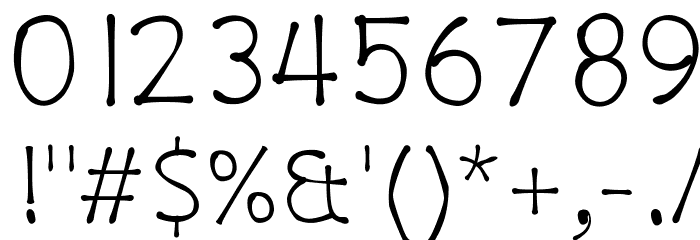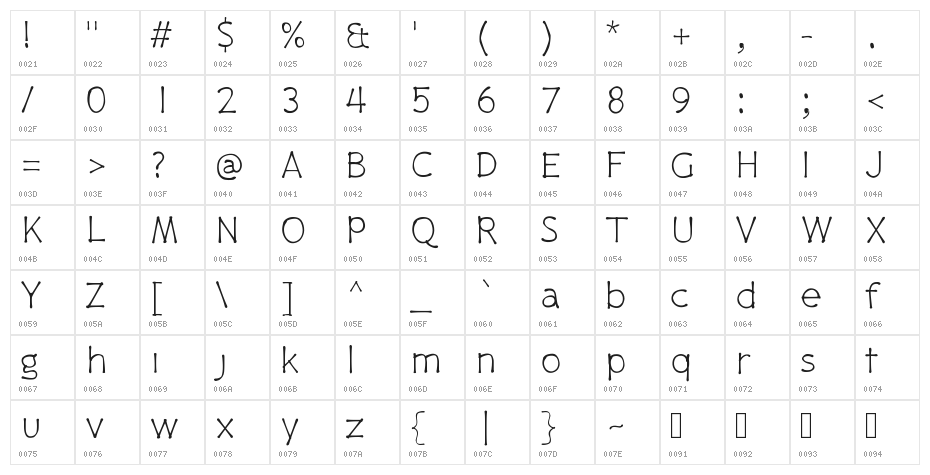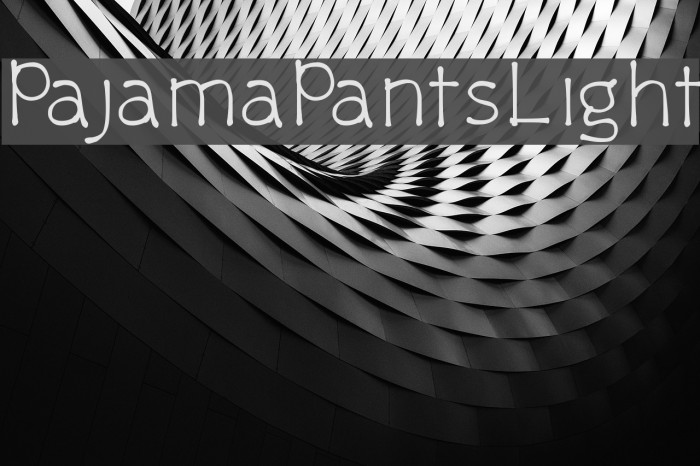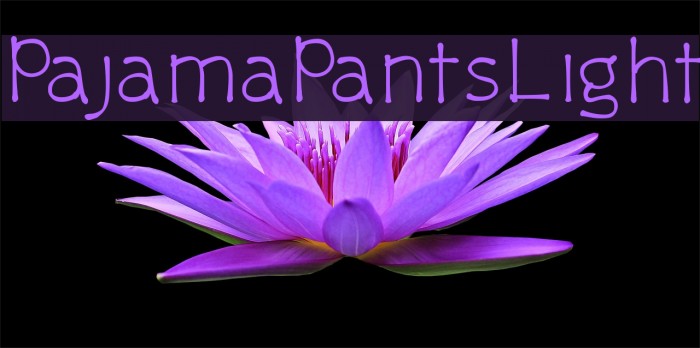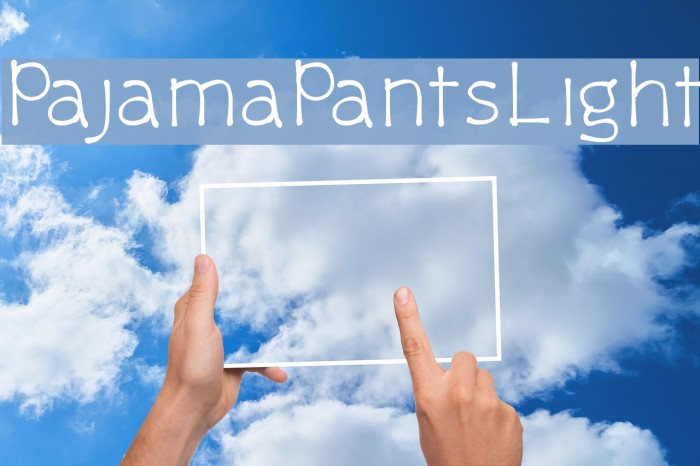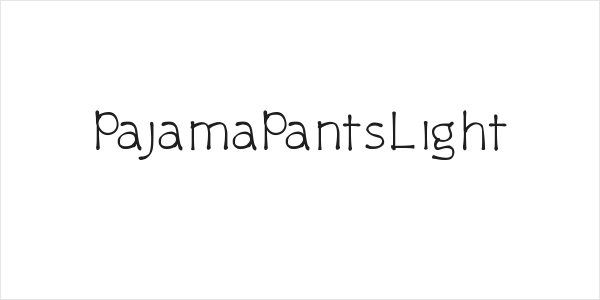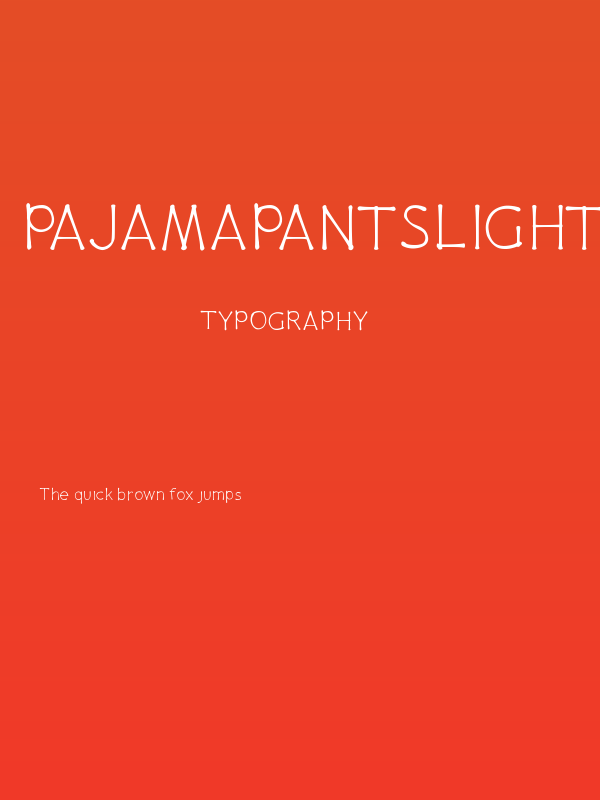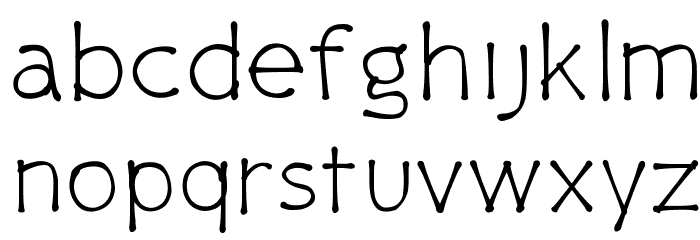
PajamaPantsLight Font
PajamaPantsLight Description
This font features a playful and casual handwritten style, characterized by its irregular strokes and slightly uneven baseline. The letters have a whimsical appearance, with rounded edges and a friendly demeanor. The uppercase and lowercase letters maintain a consistent style, with a slight variation in size that adds to the informal charm. The numerals and special characters are crafted with the same playful touch, making them blend seamlessly with the alphabet. This font exudes a sense of fun and creativity, perfect for projects that require a personal and approachable feel.
| Proposed Projects | Ideal for children's books, greeting cards, personal blogs, and creative branding projects. |